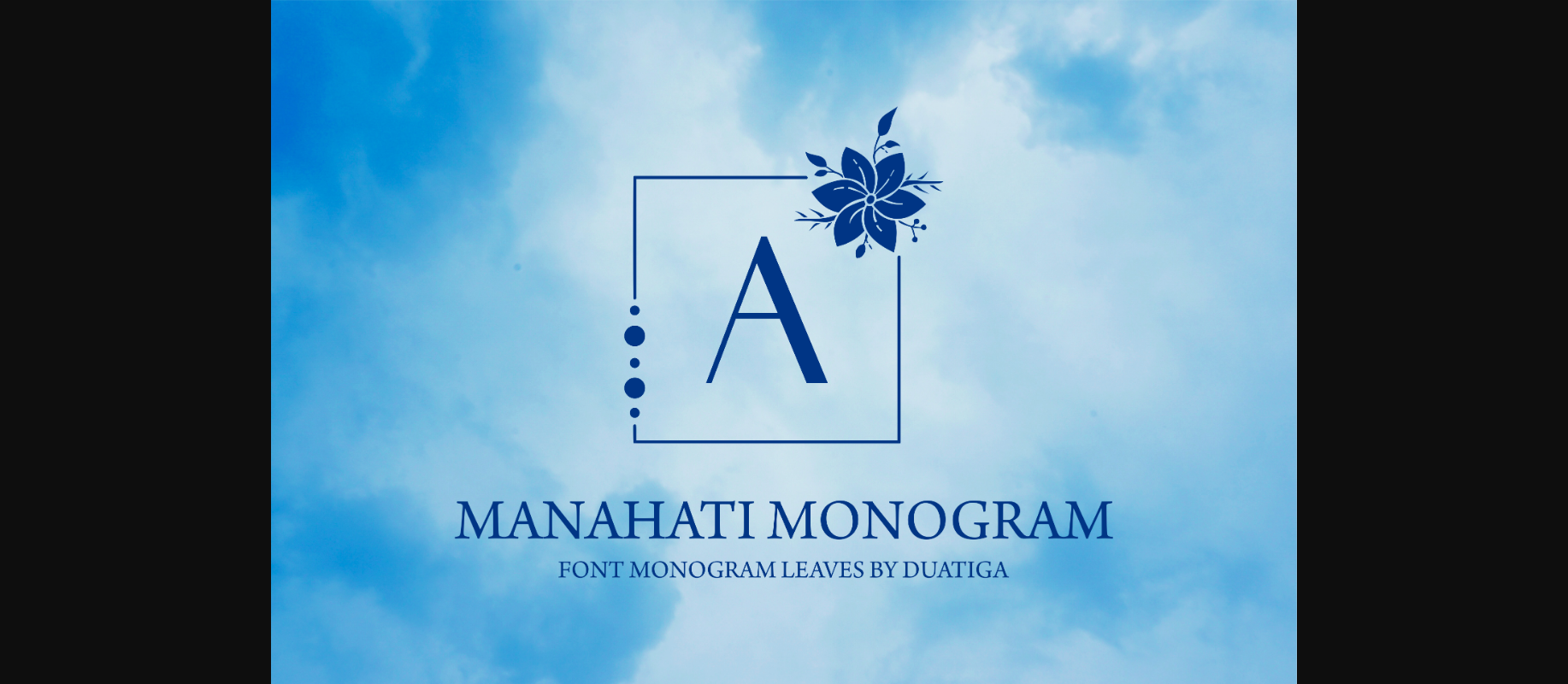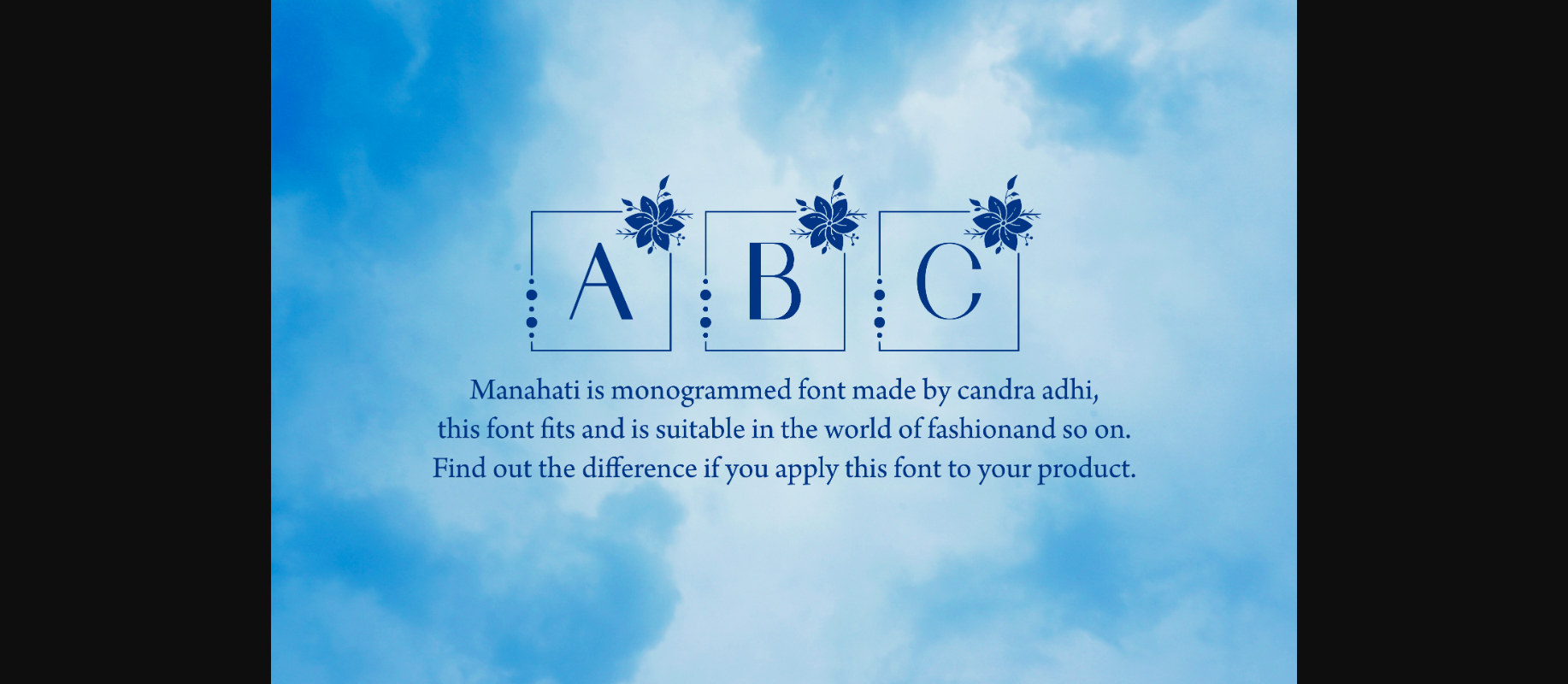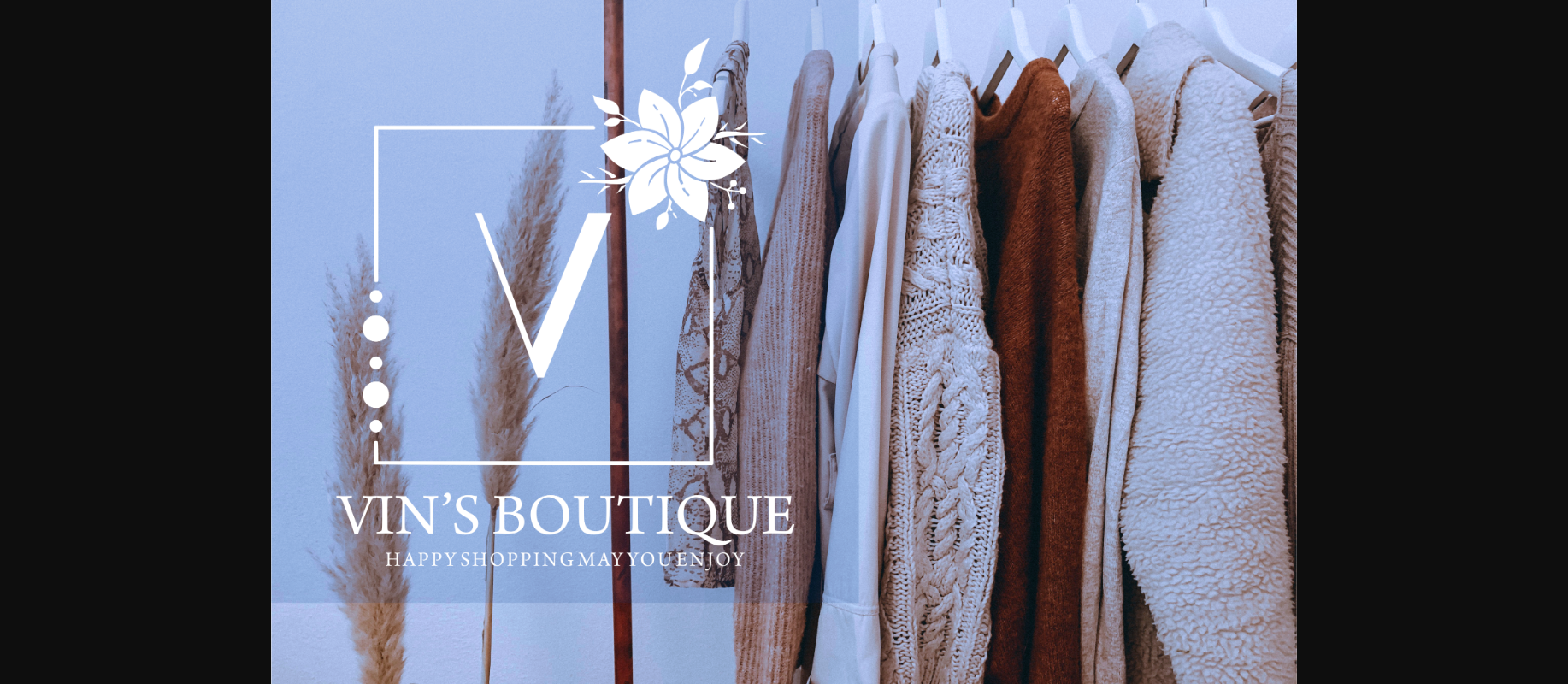
About Manahati Font
Manahati is a bold and elegant decorative font, featuring lovely flowers as ornaments. It looks stunning on wedding invitations, thank you cards, quotes, greeting cards, logos, business cards and every other design which needs a personalized touch.